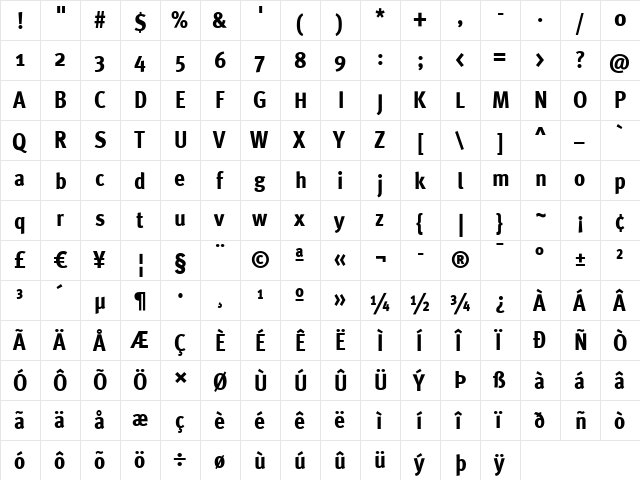
MetaCondExtraBold Roman
Design Context for MetaCondExtraBold Typeface
MetaCondExtraBold takes a measured approach to typography — its balanced proportions and neutral character make it a reliable workhorse for both digital and print work. Its bold stroke weight gives it real presence on the page. The condensed width makes it efficient for tight spaces without sacrificing legibility.